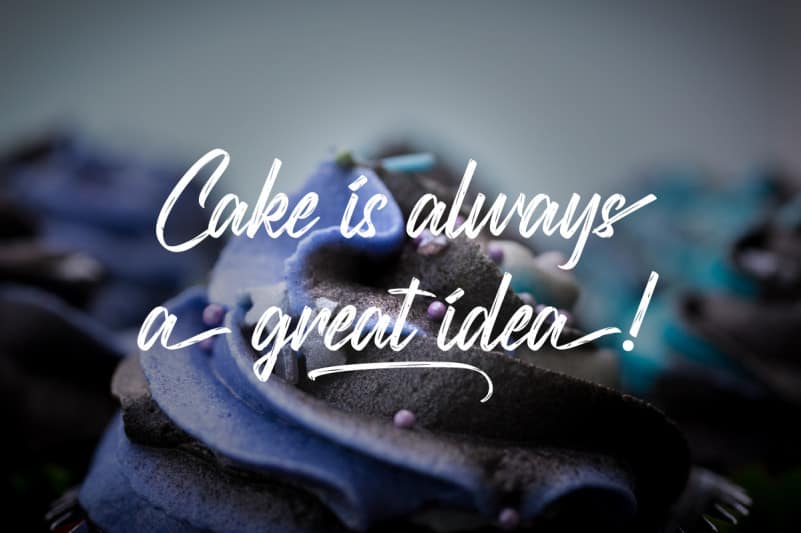
Scatterings Brush Font
Scatterings Brush Font is a handmade brush font combines attractive curves with a fresh urban edge; delivering a stylish script which is guaranteed to add an eye-catching appeal. The style of this font are stylish, classic, elegant, a fresh new handwritten brush script with a touch of class, and of course, some fabulous extras.